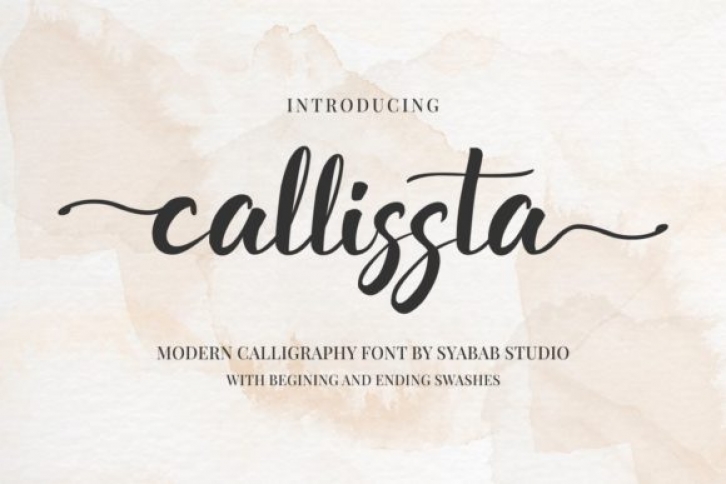
Callissta is a romantic and sweet calligraphy typeface with characters that dance along the baseline. It has a casual, yet elegant touch. Callissta is PUA encoded which means you can access all of the glyphs and swashes with ease!